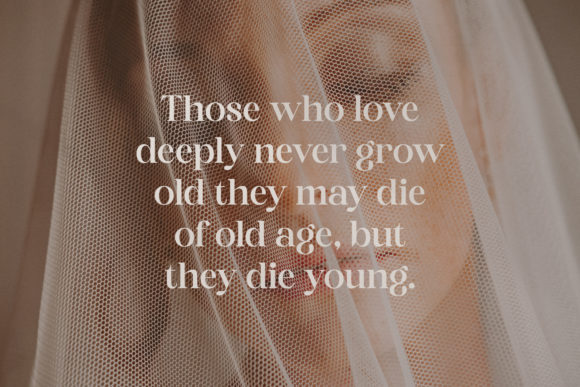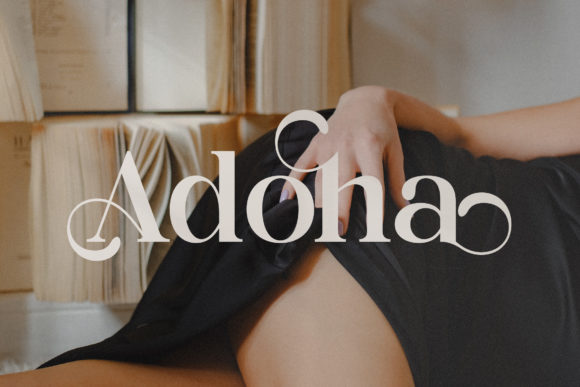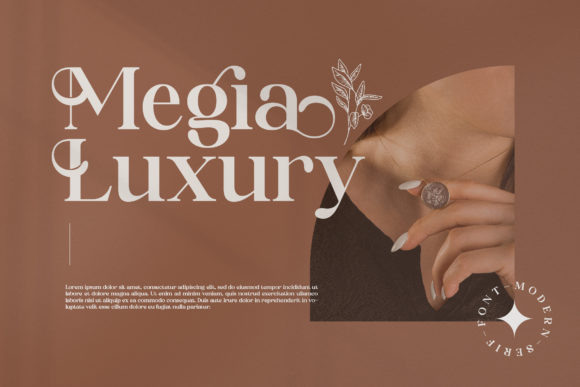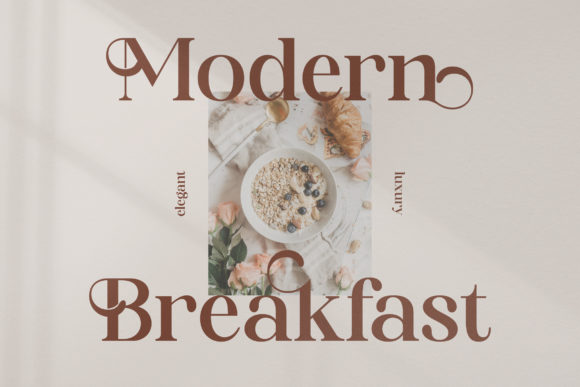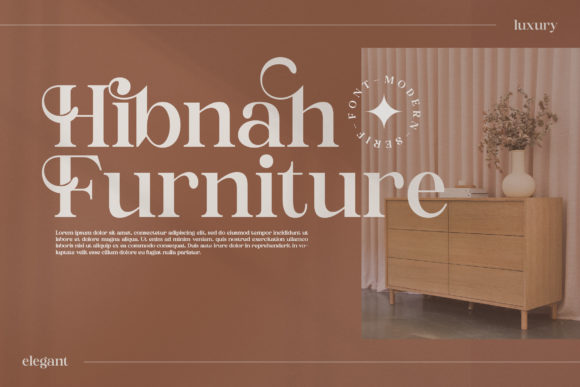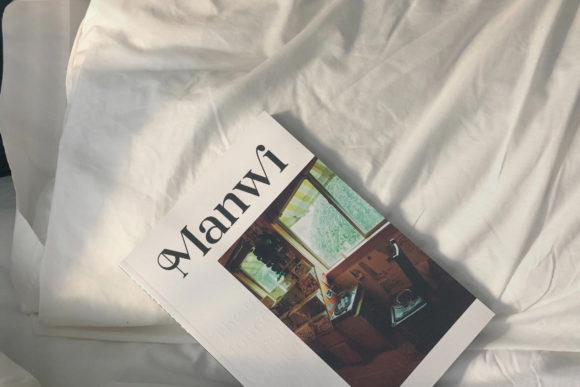
Adoha Font: Elevate Your Designs with Elegance and Sophistication
Are you searching for a typeface that exudes luxury, elegance, and modernity? Look no further than Adoha Font, a stunning serif typeface that is sure to take your designs to the next level. In this article, we’ll delve into the world of Adoha Font, exploring its unique features, and the various ways you can utilize it to create breathtaking designs.
Introducing Adoha Typeface
Proudly presented, Adoha Typeface is a masterful blend of classic and modern elements, resulting in a unique style that is both sophisticated and eye-catching. This beautiful serif typeface boasts a distinctive character, making it perfect for designers and crafters seeking to add a touch of luxury to their work.
Key Features of Adoha Font
- Modern and Classic Design: Adoha Font seamlessly merges traditional serif elements with modern flair, creating a typeface that is both timeless and contemporary.
- Elegant and Luxurious: The refined lines and curves of Adoha Font evoke a sense of sophistication, making it ideal for high-end designs, luxury brands, and elegant projects.
- Unique Style: Adoha Font’s distinctive character sets it apart from other typefaces, ensuring your designs stand out from the crowd.
- Versatile: This typeface is perfect for a wide range of applications, including logos, titles, quotes, and more.
Endless Design Possibilities with Adoha Font
Adoha Font is an incredibly versatile typeface, suitable for various design projects. Here are some ideas to get you started:
- Elegant Logos: Create stunning logos for luxury brands, fashion labels, or high-end services with Adoha Font’s sophisticated style.
- Book and Movie Titles: Add a touch of glamour to your book or movie titles with Adoha Font’s classic yet modern design.
- Fashion Brands: Elevate your fashion brand’s visual identity with Adoha Font’s elegant and luxurious aesthetic.
- Magazines and Publications: Use Adoha Font to create eye-catching headlines, titles, and quotes for your magazine or publication.
- Clothing and Apparel: Design stunning labels, tags, and packaging for clothing and apparel with Adoha Font’s unique style.
- Lettering and Quotes: Create beautiful lettering and quotes with Adoha Font, perfect for inspirational posters, social media graphics, or gift designs.
Why Choose Adoha Font?
With so many typefaces available, why choose Adoha Font? Here are just a few reasons:
- High-Quality Design: Adoha Font is crafted with precision and attention to detail, ensuring a high-quality design that will elevate your projects.
- Unique Style: Adoha Font’s distinctive character guarantees your designs will stand out from the crowd.
In conclusion, Adoha Font is a stunning serif typeface that offers a perfect blend of modernity and classic elegance. With its unique style, luxurious aesthetic, and versatility, Adoha Font is an excellent choice for designers and crafters seeking to elevate their designs. Whether you’re working on a luxury brand, fashion label, or personal project, Adoha Font is sure to impress. So why wait? Discover the world of Adoha Font and take your designs to new heights!